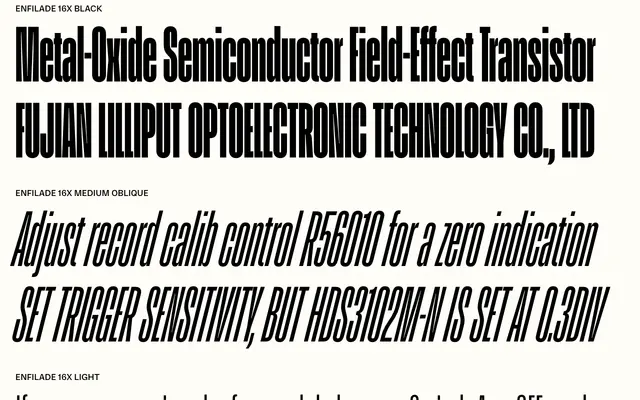
Enfilade
A condensed sans-serif built across five optical sizes, each calibrated to work at double the point size of the previous, with ink traps and glyph widths that shift accordingly.
Most condensed typefaces are drawn for a single size range and become illegible outside it; Enfilade addresses this directly with five optical sizes spanning 1x through 16x, each doubling the intended point size of the previous. Ink traps appear and disappear as needed, and glyph widths adjust per size to preserve both compression and readability. A variable font covering the entire family is available, allowing finer control across the full optical range. Six weights from Hairline to Black are offered at each optical size, with matching obliques throughout.
Enfilade is a condensed sans-serif designed specifically for compressed settings across a range of point sizes, with five optical sizes and an oblique rather than a true italic, placing it firmly in the display/condensed sans tradition.